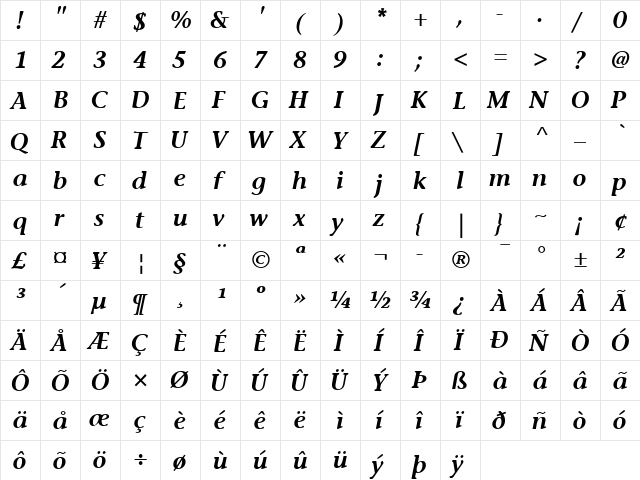
StoneInformalSemibold Italic Font Preview
Design Context for StoneInformalSemibold Typeface
StoneInformalSemibold takes a measured approach to typography — its balanced proportions and neutral character make it a reliable workhorse for both digital and print work. Its italic angle brings a sense of urgency and motion to the letterforms. Its bold stroke weight gives it real presence on the page.
Pro Tip: Use StoneInformalSemibold for emphasis, pull quotes, and subheadings where its slanted energy can add rhythm to the layout.